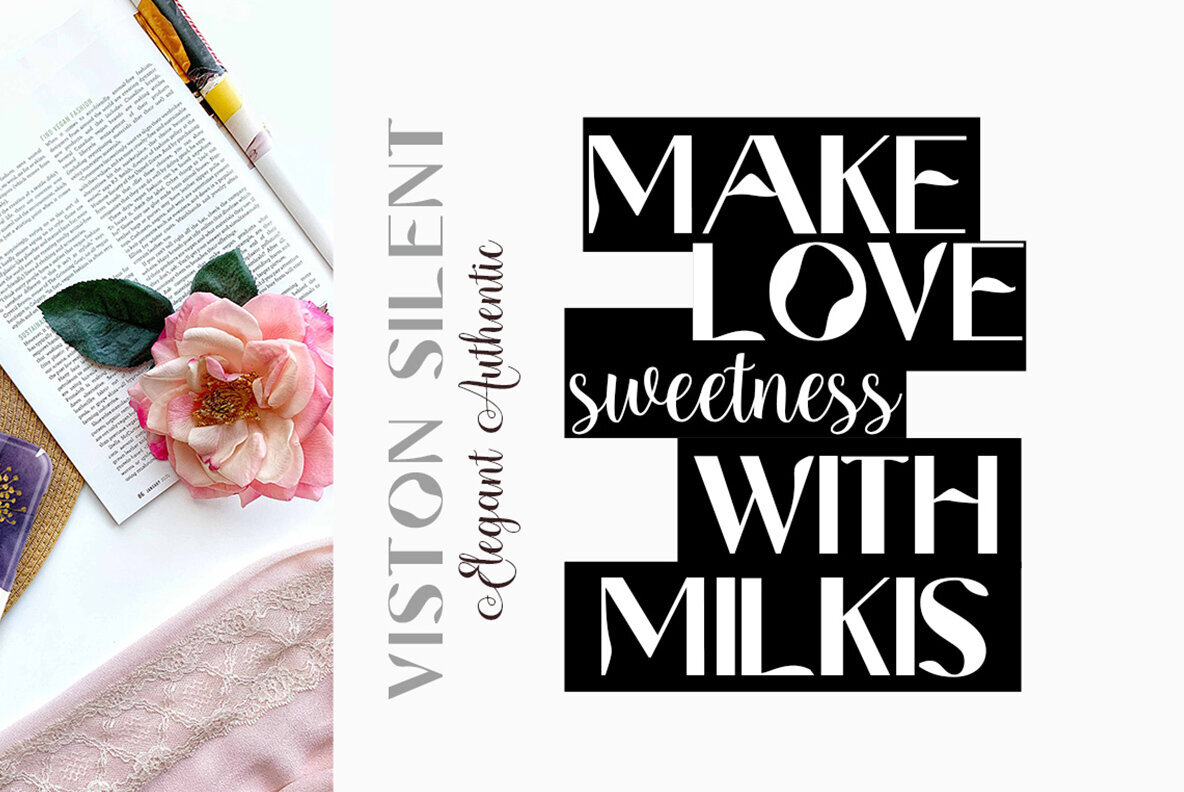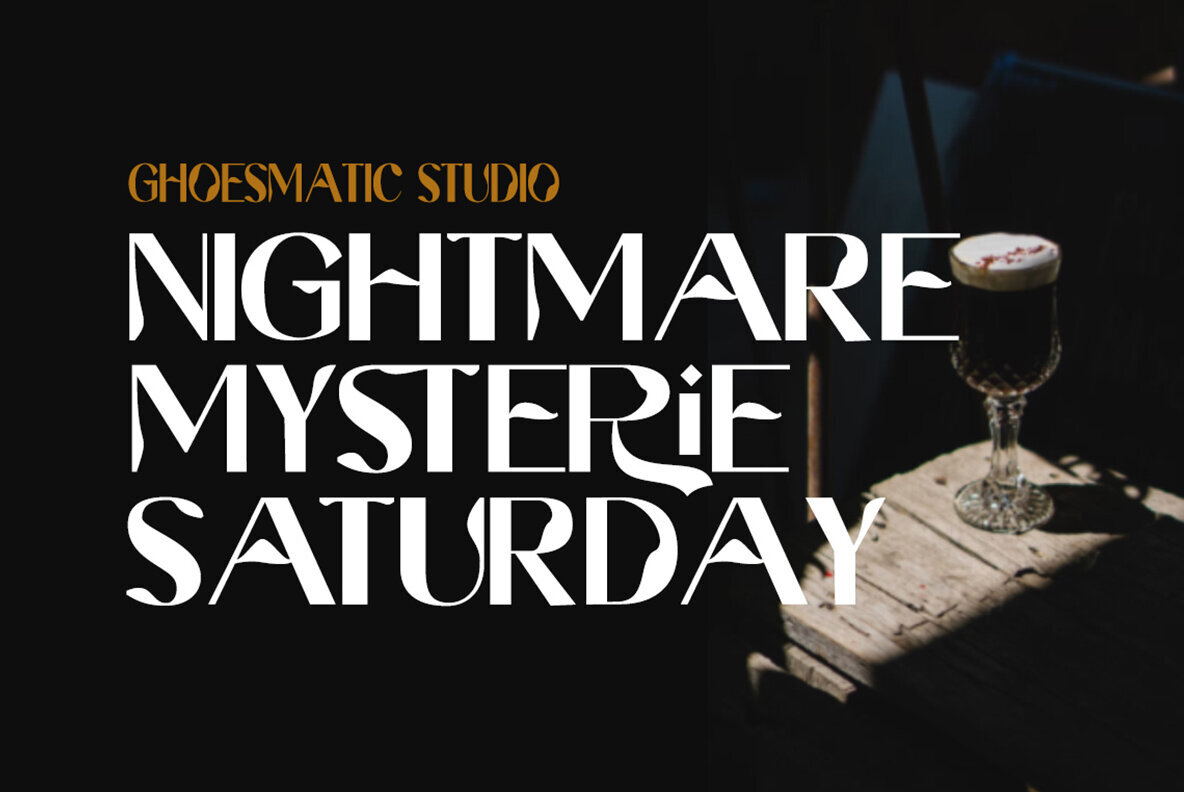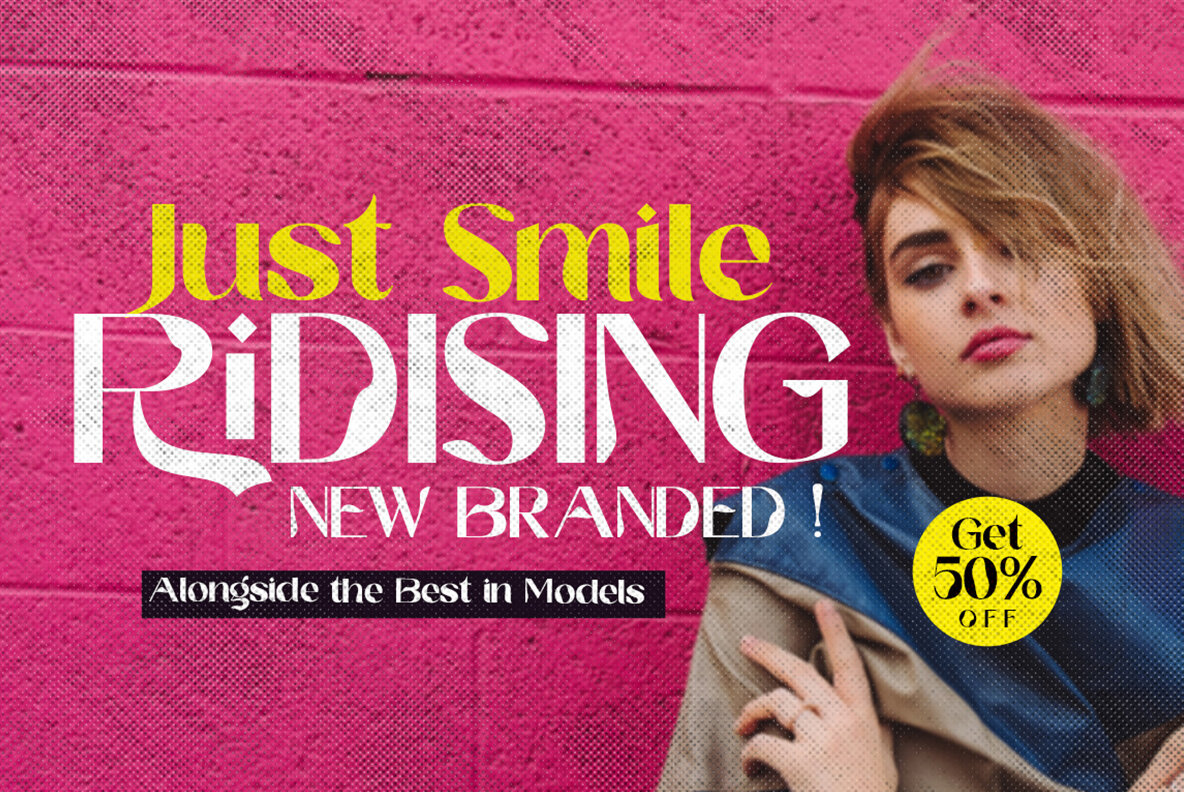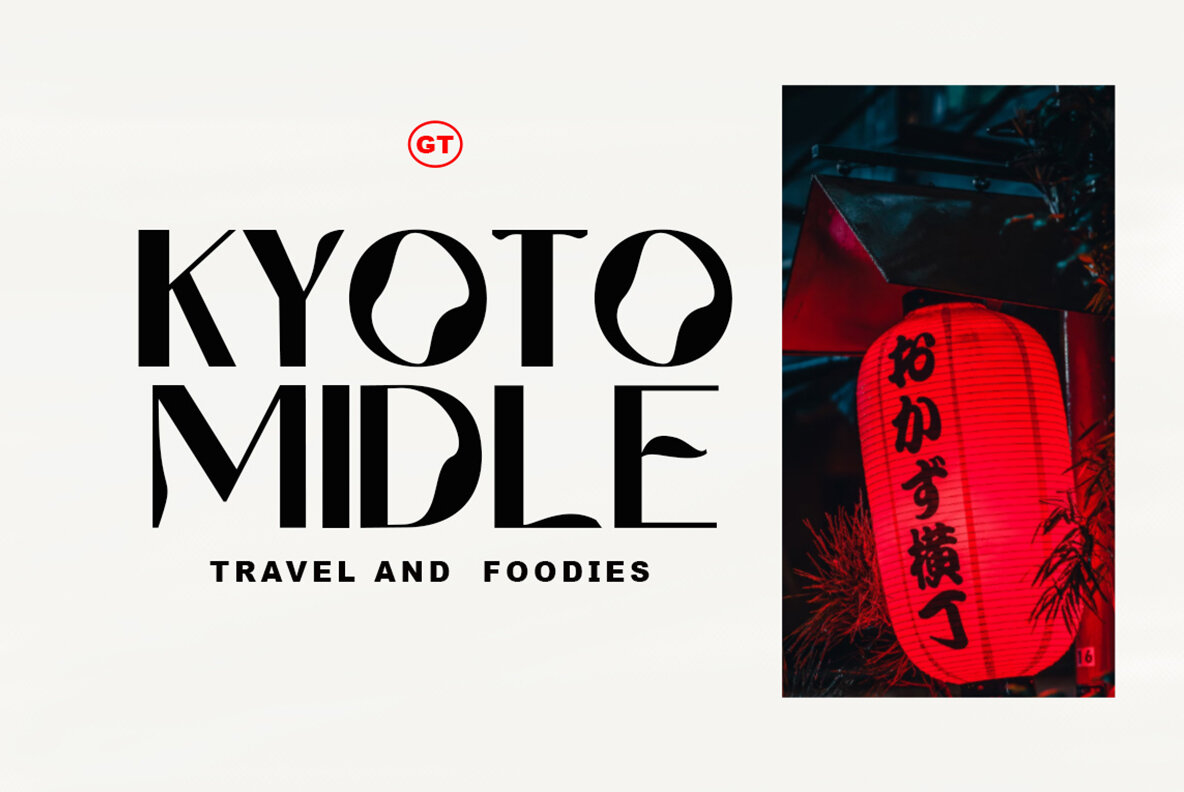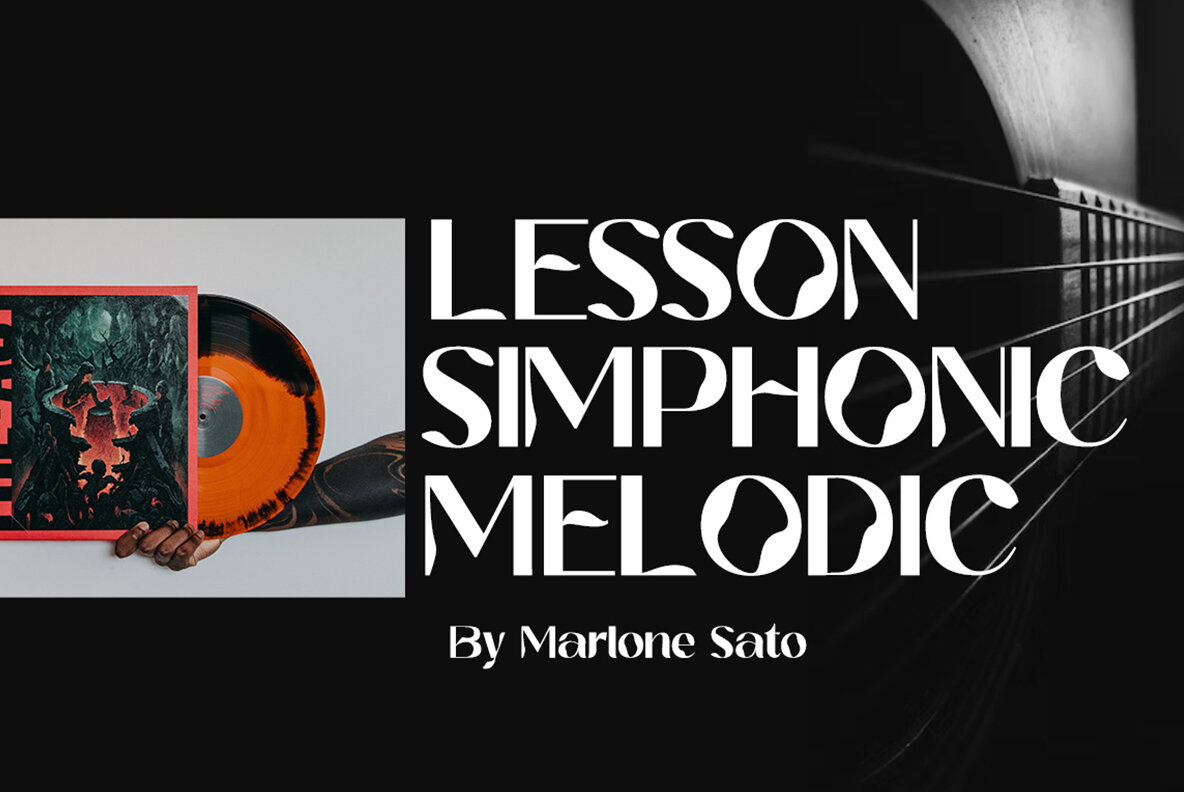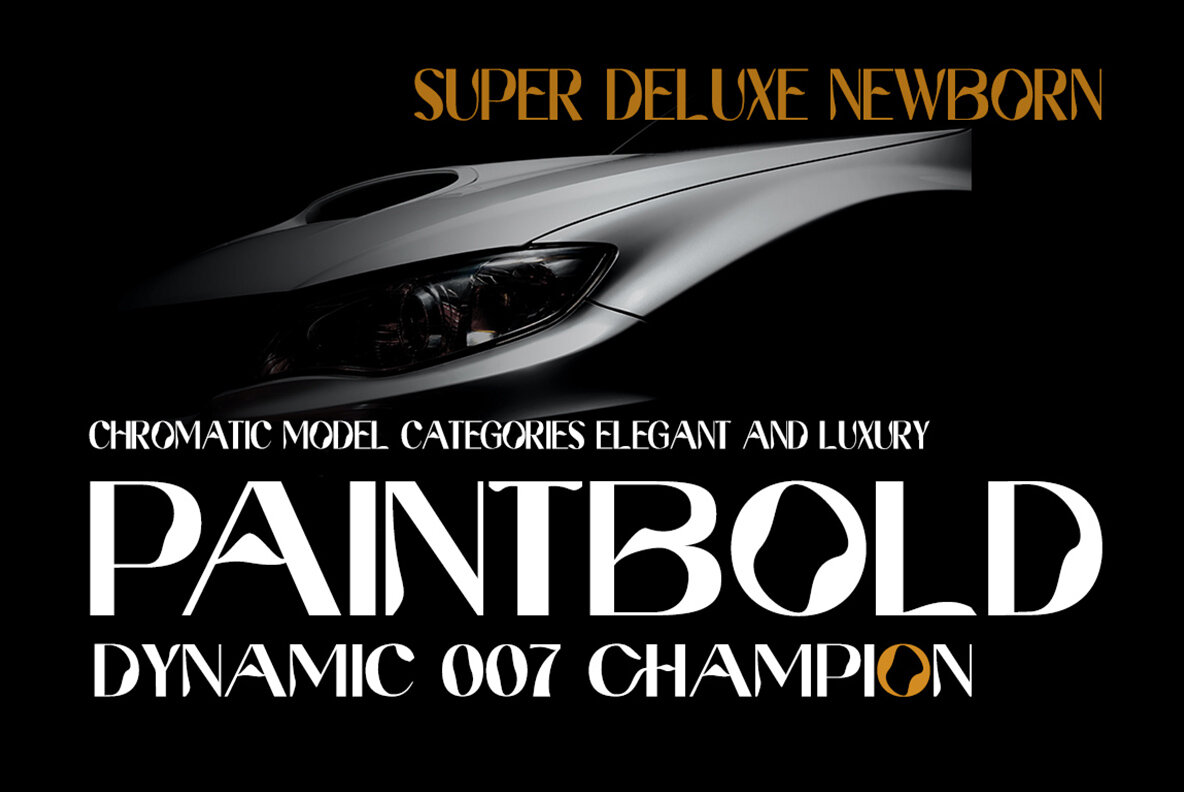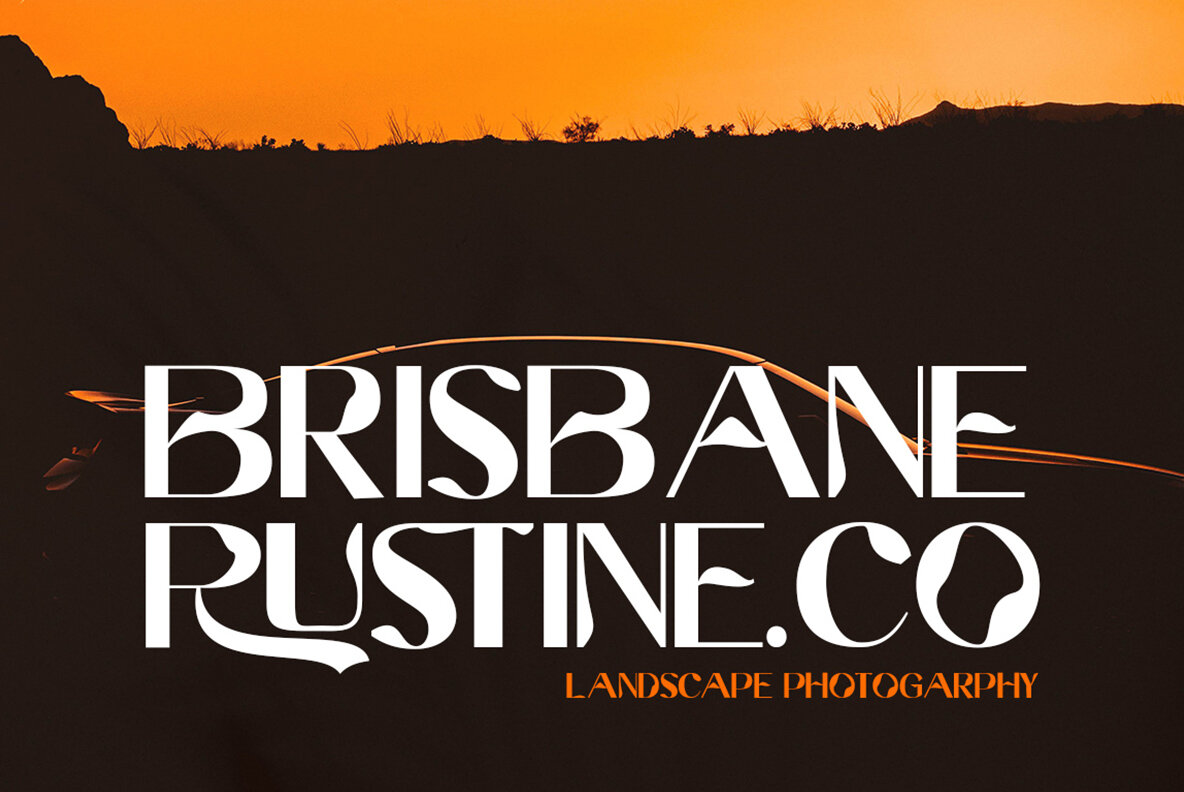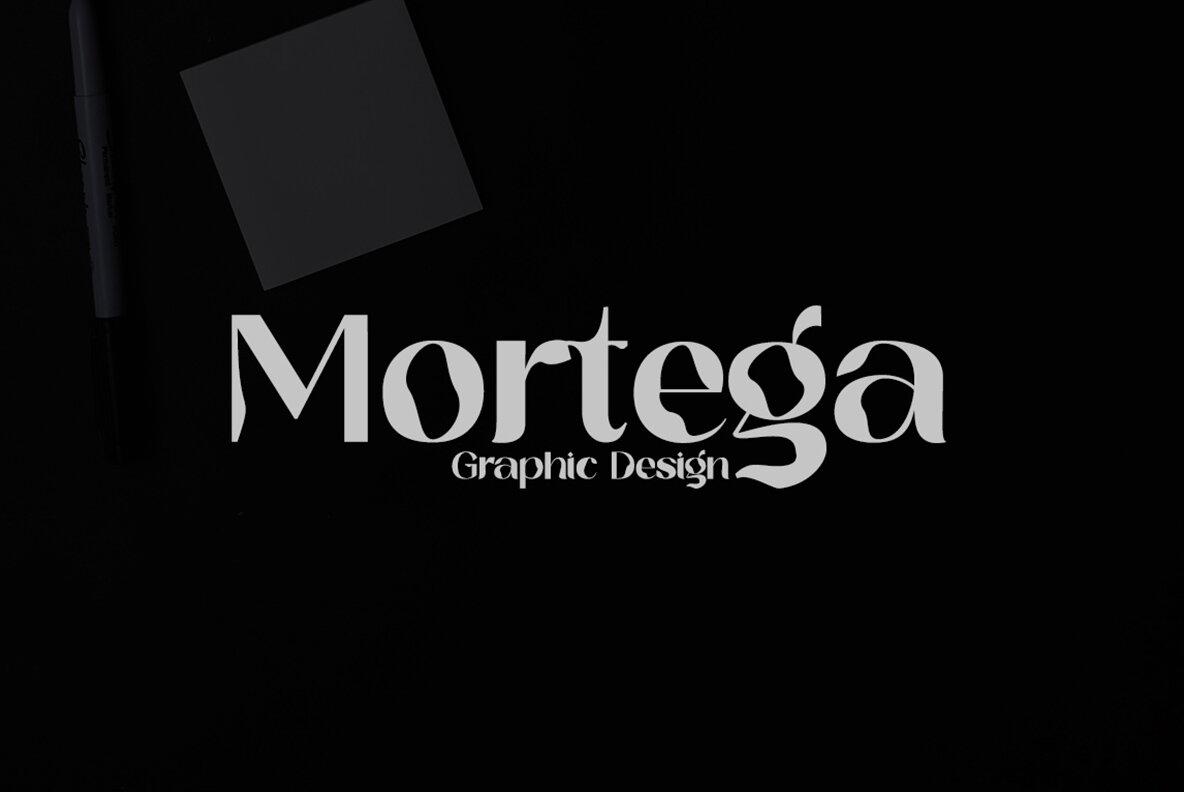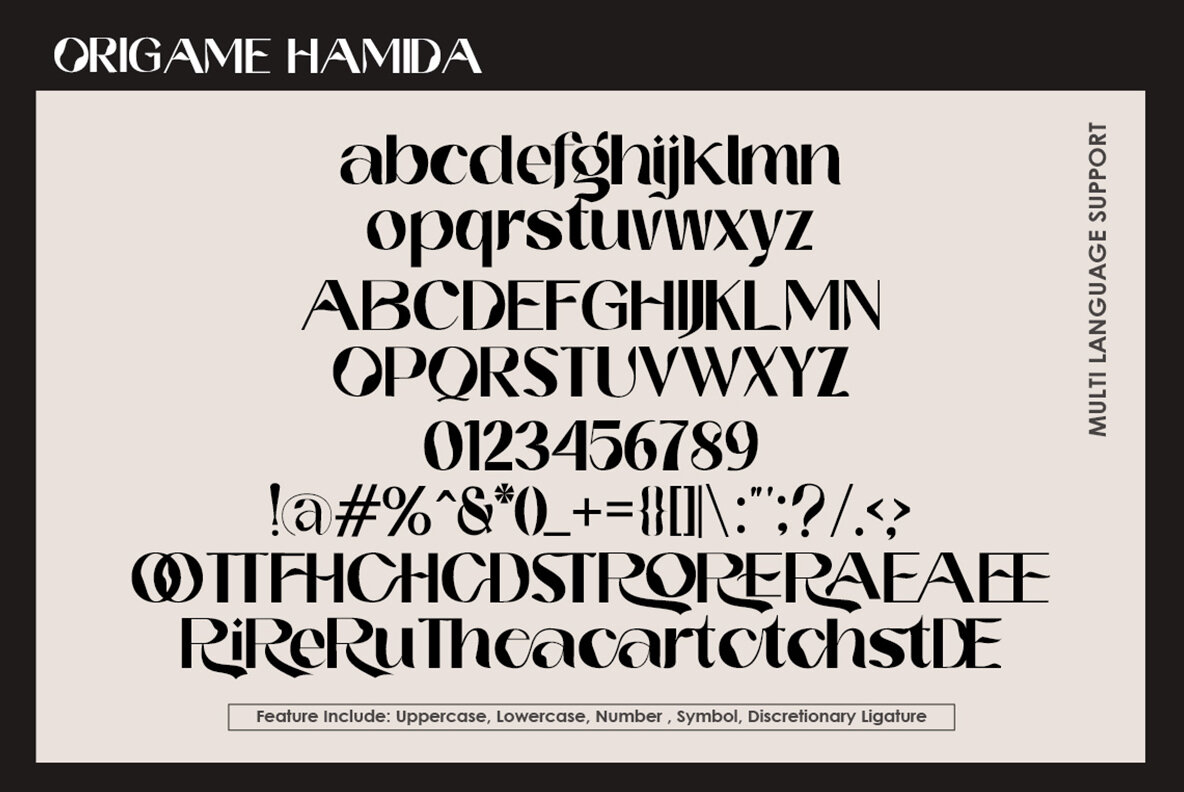
Origament Hamida Font
Origamet Hamida
Introducing Origamet Hamida, a font that blends the elegance of natural origami with a modern and stylish twist. This distinct script font stands out for its elegance and versatility, making it an excellent choice for a variety of creative projects. Origamet Hamida is perfect for enhancing the design of:Origamet Hamida: A Classy and Modern Script Font